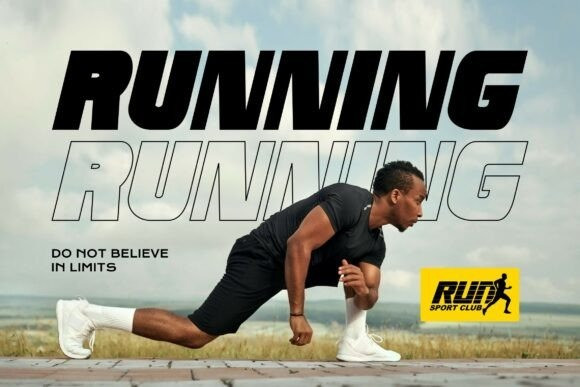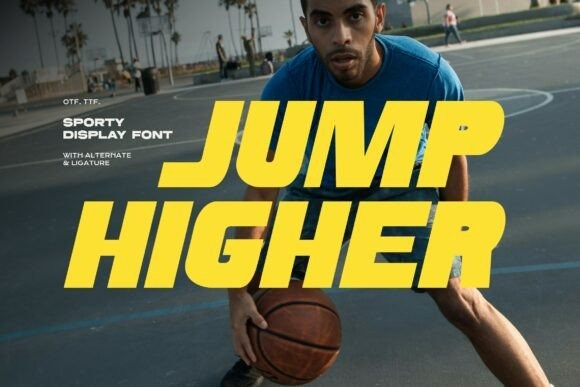
Jump Higher Font
Jump Higher Font is a high impact, sporty display font built to inject energy into your headlines, logos, and branding. Inspired by the adrenaline of the court. Its letterforms combine bold weight, a forward leaning slant, and razor sharp cut off terminals for maximum momentum.
Jump Higher is built for athletes and sports brands, fitness studios, streetwear labels, hero website, and any design that needs a turbo boost of attitude.